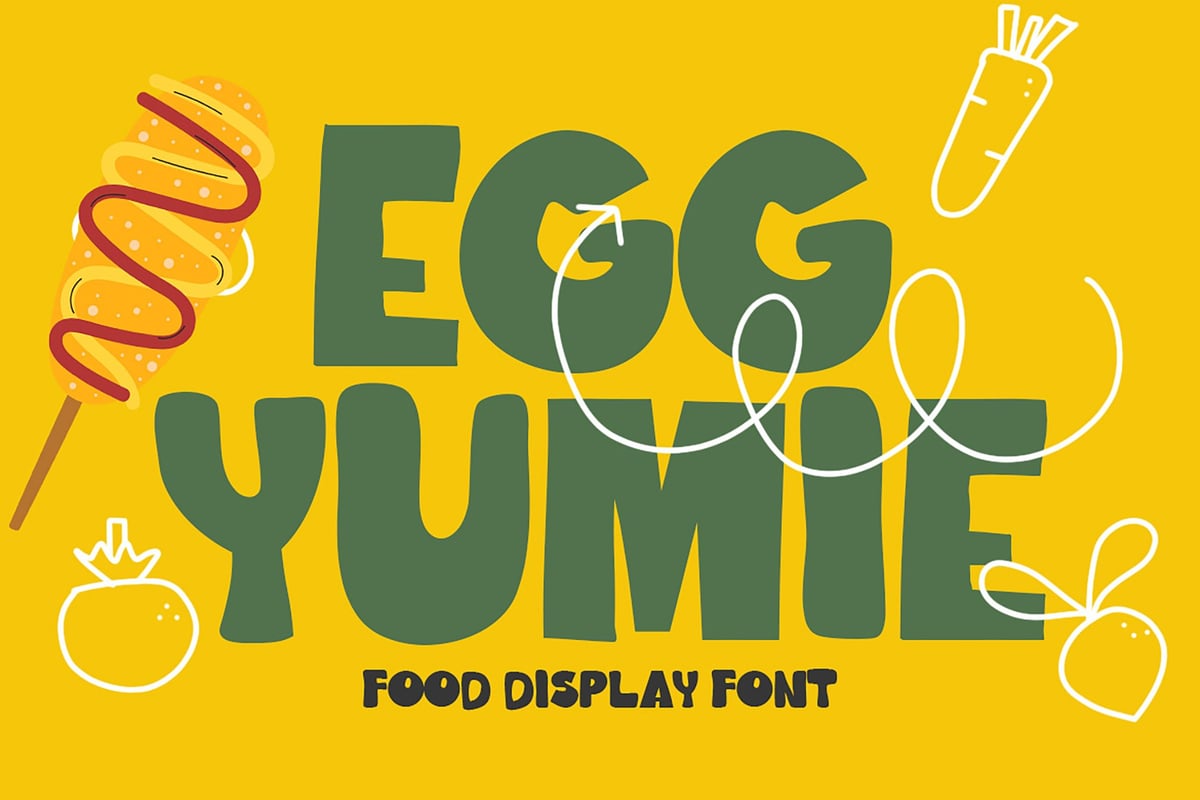
Egg Yumie – Food Font
Bring delicious personality to your food designs with this warm, cheerful display font featuring rounded letterforms and inviting curves. Egg Yumie is a fun and friendly display font crafted to add warmth, charm, and mouth-watering character to food-related projects. With its soft curves and bold shapes, this typeface creates an inviting visual impact that's perfect for culinary branding. Package includes: OTF TTF WOFF WOFF2 Features: Uppercase Lowercase Ligatures Numerals Punctuation Easy To In...